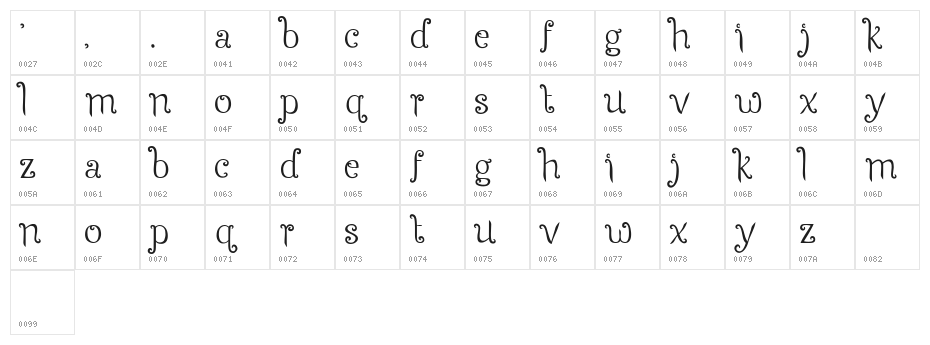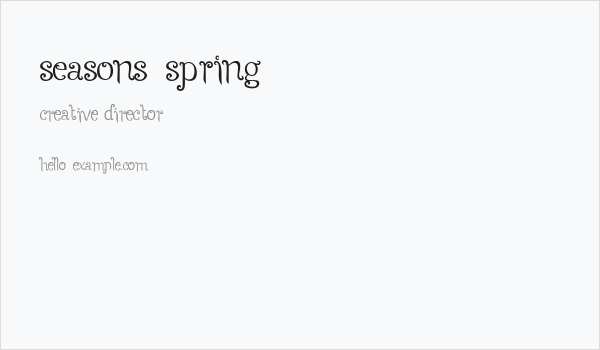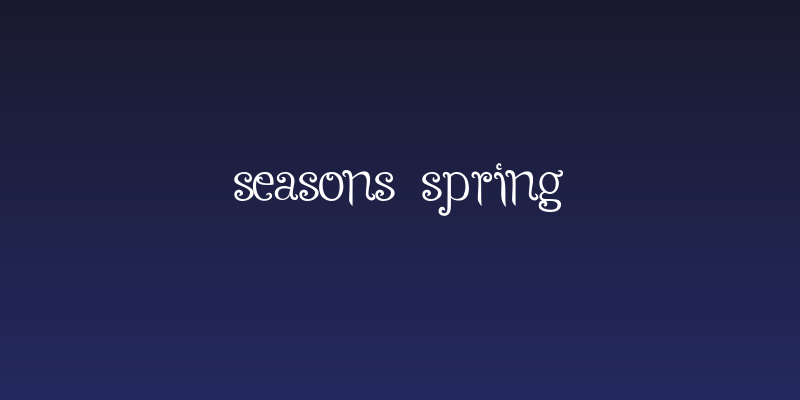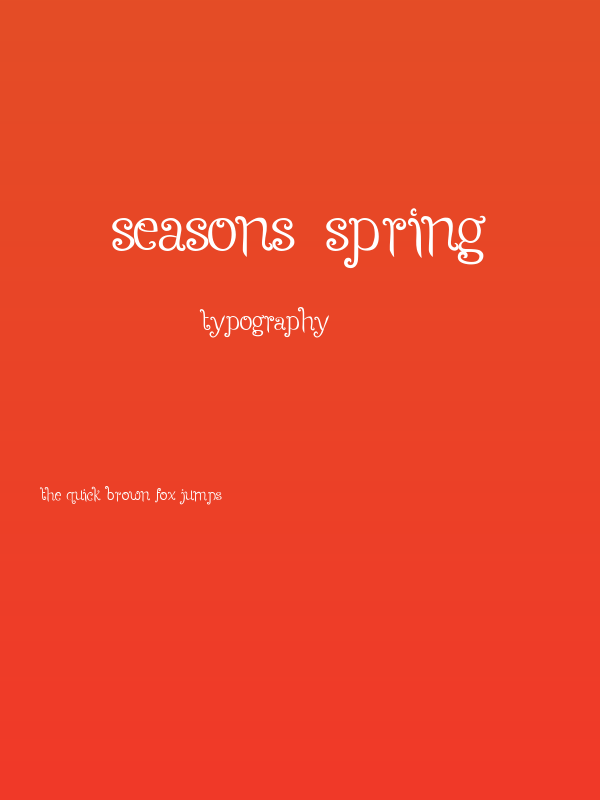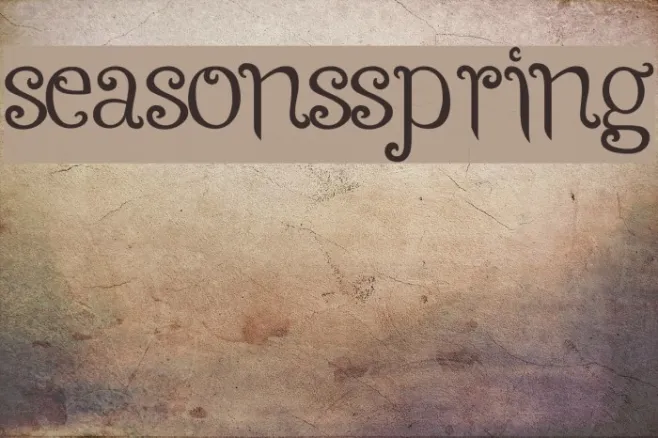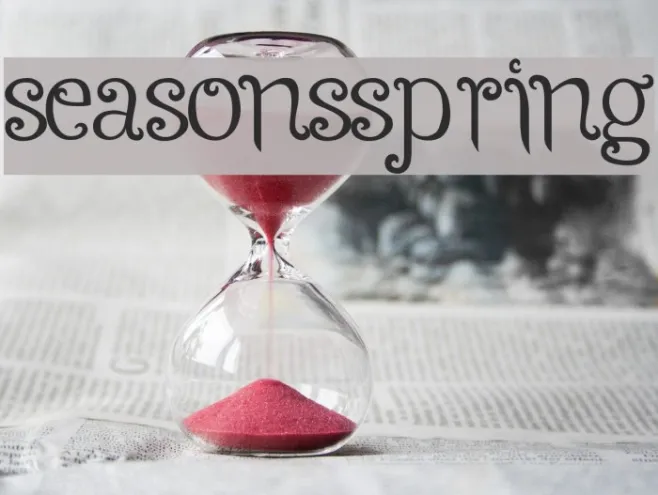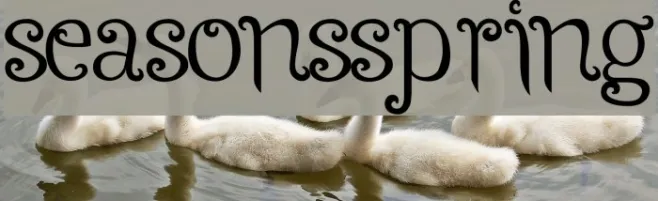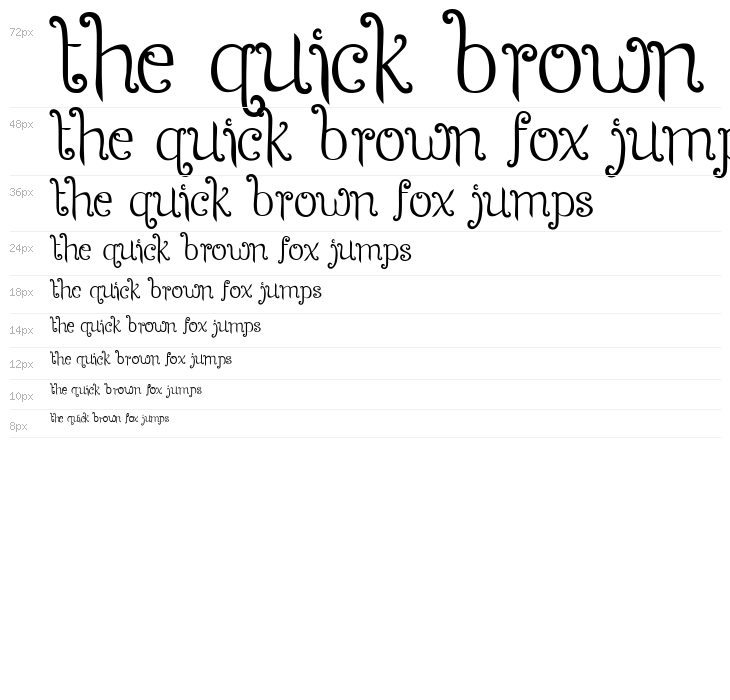
Seasons-Spring Font
Seasons-Spring Description
This font features a whimsical and decorative style, characterized by its playful curls and swirls at the ends of each letter. The lowercase letters are uniform in height, with a consistent baseline, giving it a cohesive look. The strokes are smooth and rounded, adding to its friendly and approachable appearance. The font is particularly notable for its unique embellishments, which give it a distinct personality. The overall design is both elegant and fun, making it suitable for creative projects that require a touch of flair.
| Proposed Projects | Ideal for greeting cards, invitations, children's books, and playful branding. |